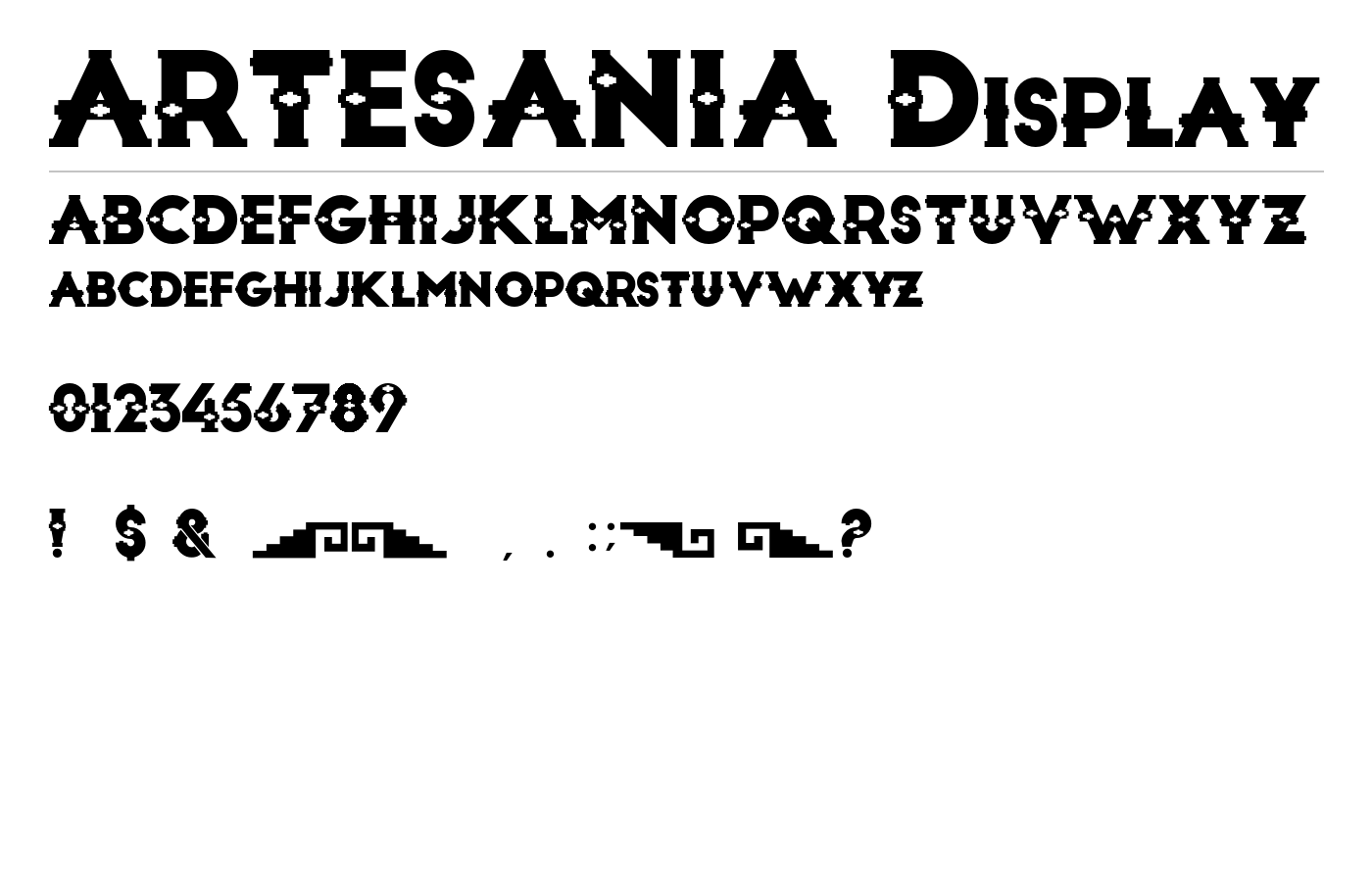
Artesania Display is a bold, decorative serif font with a strong, handcrafted feel inspired by traditional craftsmanship. Its thick, blocky letters feature unique geometric cutouts and stepped detailing, giving it a vintage yet striking personality that works well for logos, packaging, and headlines where a distinctive, artisanal look is desired. This font captures attention with its dramatic style, making it perfect for brands and projects aiming to convey creativity and heritage.
ARTESANIA Display Font
About ARTESANIA Display Font
| Font family | ARTESANIA Display Font |
| Designer | Antonio Sanchez |